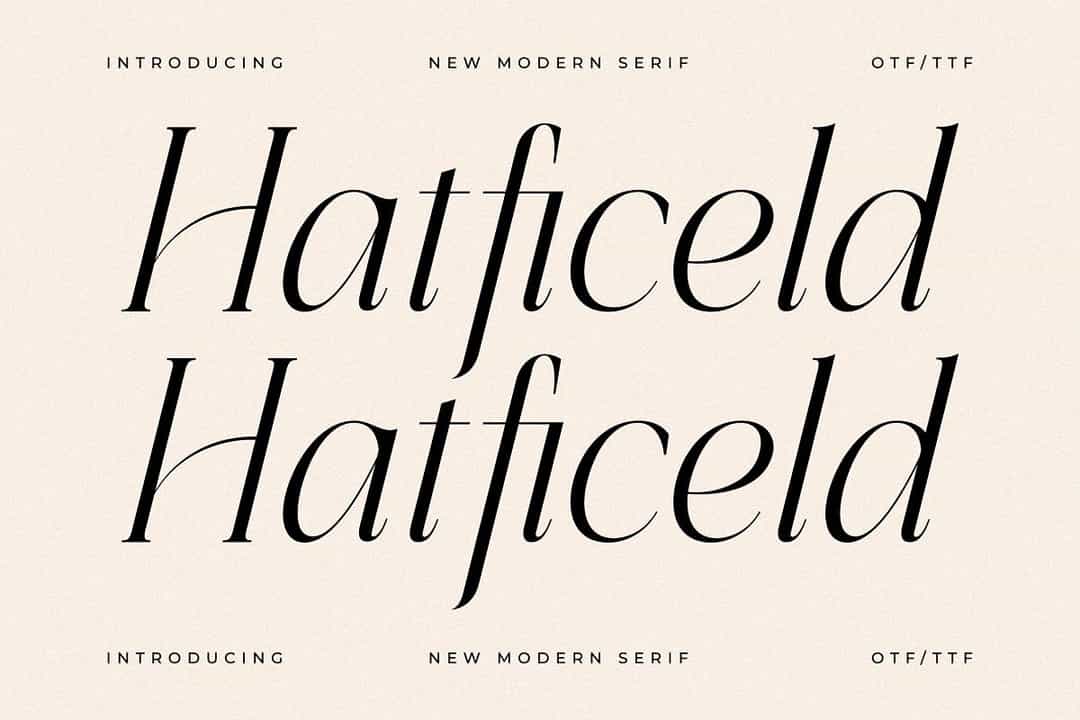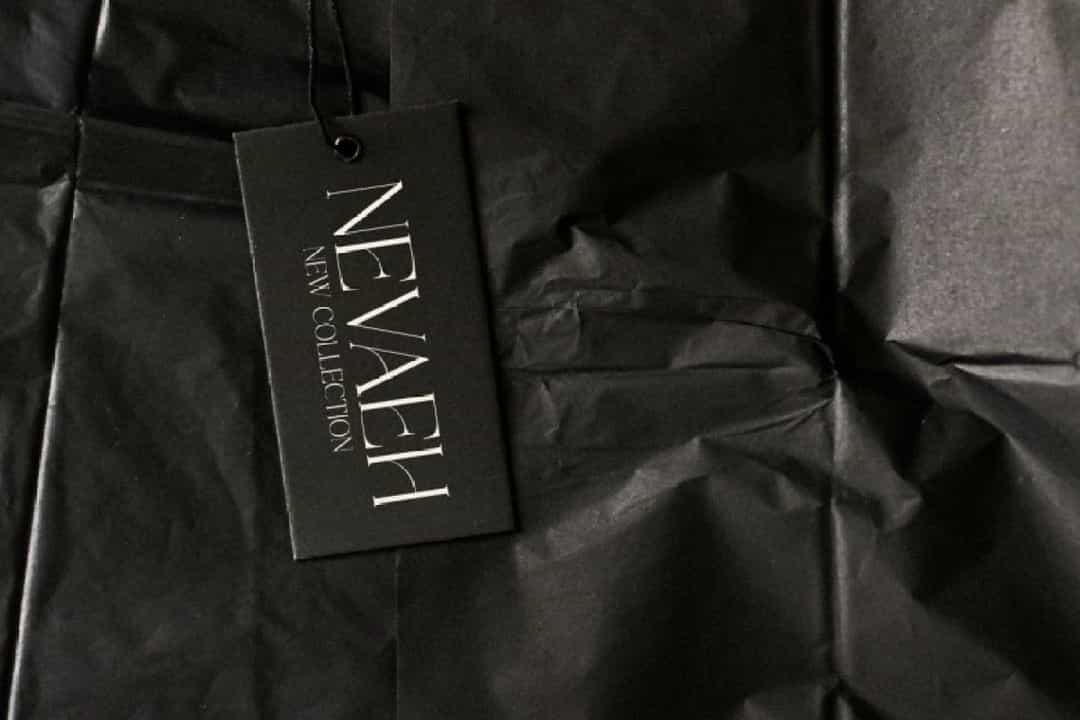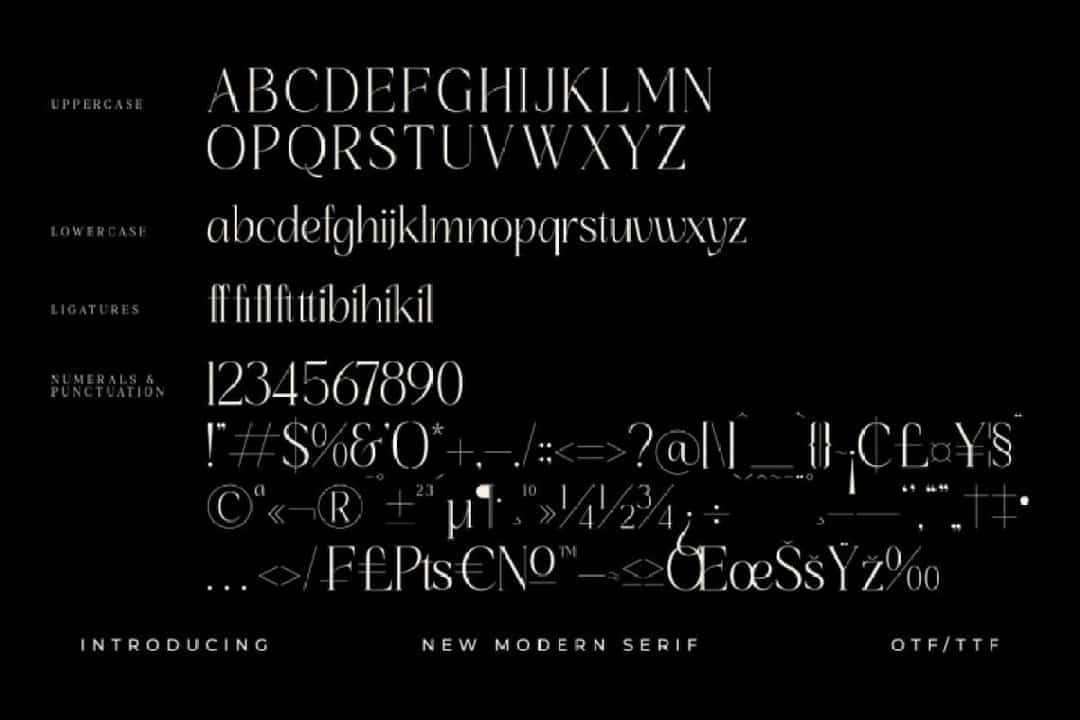
Discover Hatficeld Font, part of the Serif collection—a versatile and unique font perfect for adding a personal touch to your projects. Download it for free and enjoy crafting designs with style, from invitations to social media posts. This font is available exclusively for personal use, giving you the freedom to create without limits. Unlock your creativity with Hatficeld Font today!
Hatficeld is an elegant yet bold serif font. We adore its versatile design and often utilize it when creating wedding invitations, stationary art designs, engaging tweets on social networks and more!